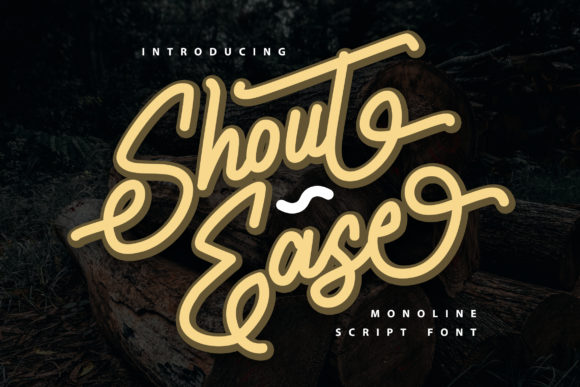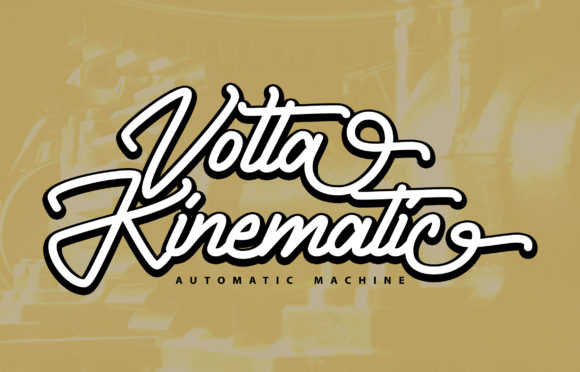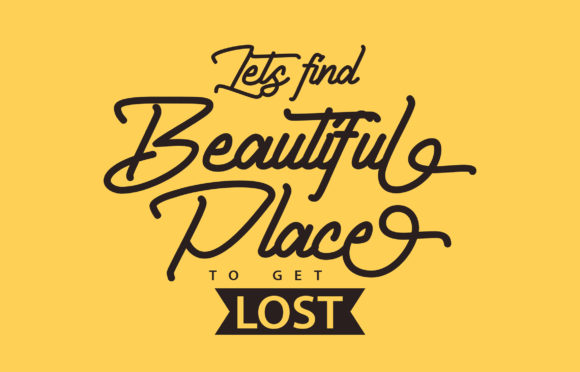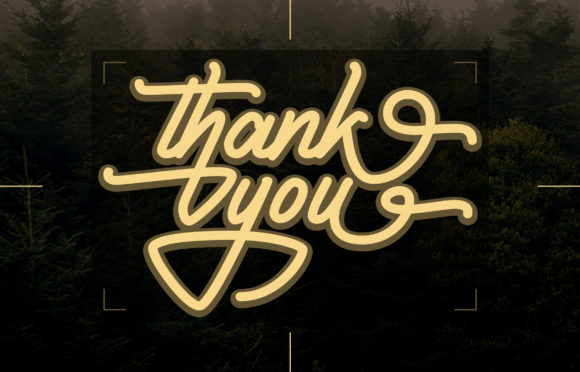
Shout Ease Font
About Shout Ease Font
Shout Ease is inspired by classic typography and brings its own unique style to any design project. This versatility will appeal to a wide range of crafty ideas, from letterheads and titles, to stationery.